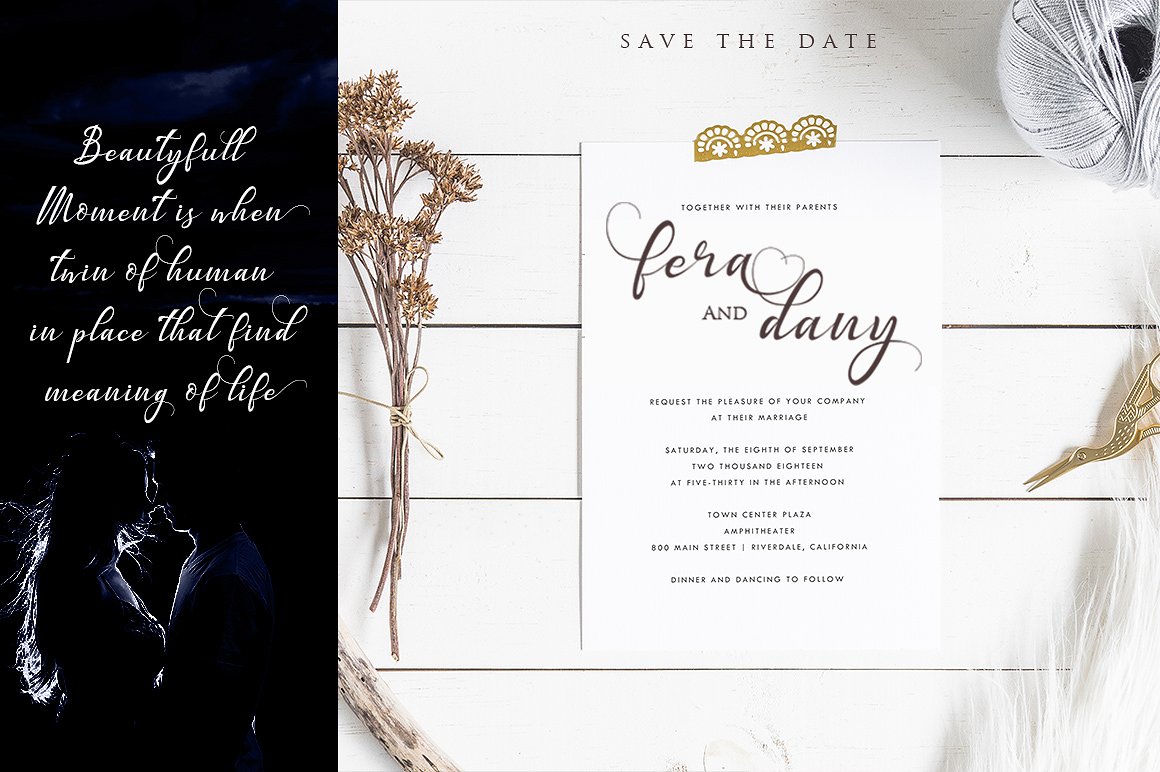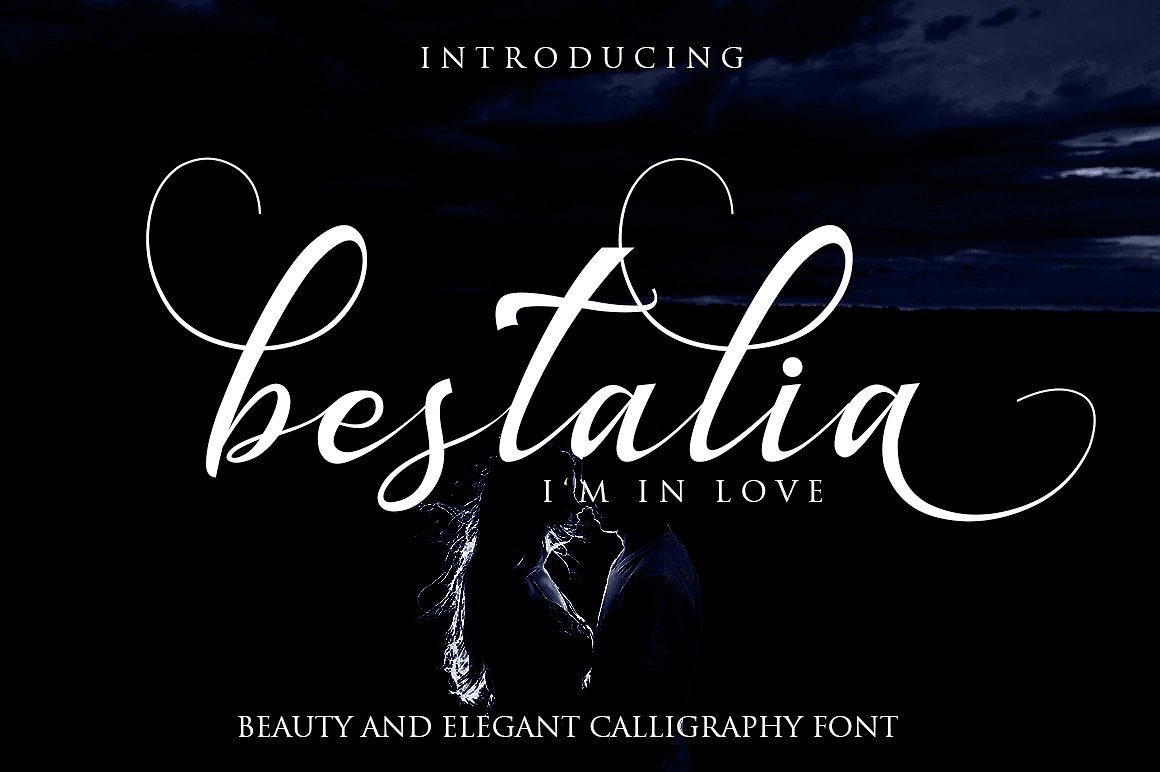
Bestalia Calligraphy
Bestalia Calligraphy Font
Introducing the elegant new “Bestalia Script” For those of you who are needing a touch of elegance and modernity for your designs, this font was created for you!